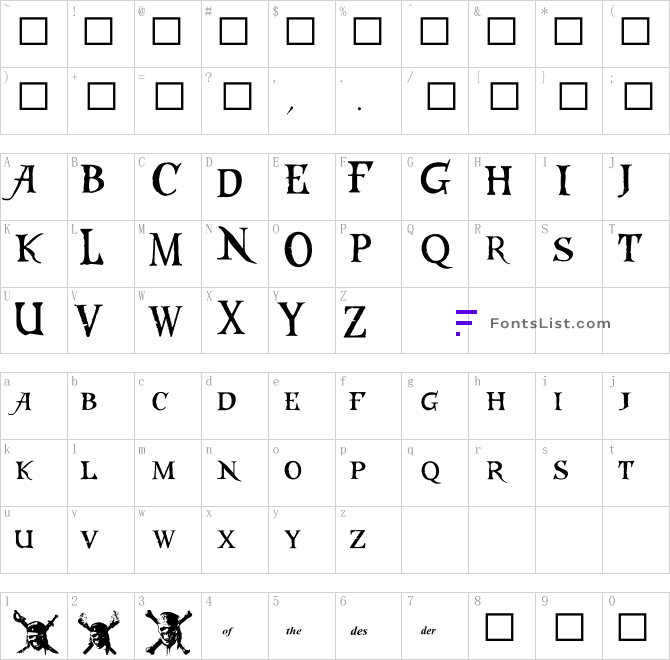
- Font Name:Caribbean's Treasure
Caribbean-s-Treasure.ttf is a very beautiful artistic font, Caribbean-s-Treasure.ttf is widely used in the design and printing of various books and pictures,Caribbean-s-Treasure.ttf has a strong visual impact,Caribbean-s-Treasure.ttf is a commonly used font in newspapers, magazines and books, and is used in posters, e-commerce Poster design, store design, logo design, font design and other fields.Caribbean-s-Treasure.